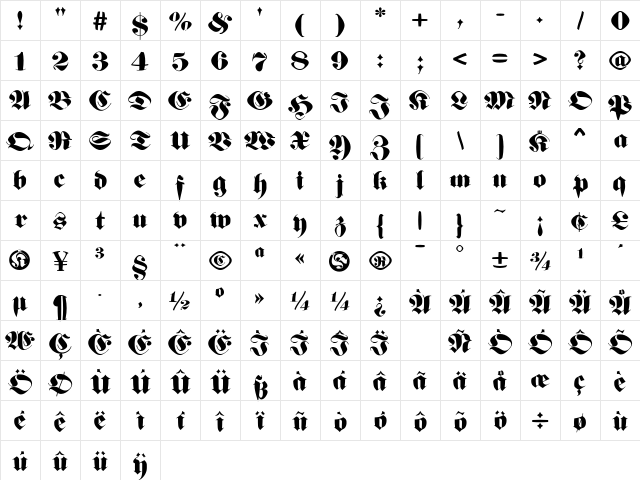
Complete GermanFatman Regular glyph index. Displaying only characters natively supported by GermanFatman Regular font.
GermanFatman is a composed and adaptable typeface that performs quietly and consistently across a wide range of design contexts.